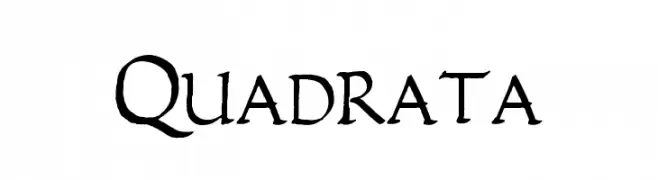
( Fonts by Nick Curtis - www.nicksfonts.com )
A bold, decorative blackletter font with intricate detailing and a Gothic style.
An oblique serif font with medium weight and elegant, angular serifs.
( Fonts by Goma Shin - Shintarou Nakayama www.geocities.jp/gomarice_font/ )
A bold, blocky serif font with strong, consistent strokes and high contrast.
( Fonts by Goma Shin - Shintarou Nakayama www.geocities.jp/gomarice_font/ )
A bold, rounded font with a playful and chunky style.
( Fonts by Fernando Carvente - serifdechocolate.wordpress.com )
A bold, dynamic font with thick strokes and a slight slant.
A playful, bold font with thick, rounded strokes and a comic book style.
( Fonts by Divide By Zero! - fonts.tom7.com )
A retro dot matrix font inspired by vintage pinball displays.
( Fonts by www.DigitalDreamDesign.net )
A bold, playful font with bubble-like characters and thick outlines.
( Fonts by www.DigitalDreamDesign.net )
A bold, geometric font with a playful, modern aesthetic and retro-futuristic flair.
( Fonts by www.DigitalDreamDesign.net )
A playful and bold font with rounded, exaggerated forms.
( Fonts by www.DigitalDreamDesign.net )
A complex, maze-like decorative font with bold geometric patterns.
( Fonts by www.DigitalDreamDesign.net )
A pixelated, retro digital font with bold, blocky characters.
( Fonts by www.DigitalDreamDesign.net )
A dot matrix style font with a modern, digital aesthetic.
( Fonts by www.DigitalDreamDesign.net )
A bold, geometric font with a modern, futuristic style.
( Fonts by www.DigitalDreamDesign.net )
A bold, oblique font with a futuristic and dynamic style.
( Fonts by www.DigitalDreamDesign.net )
A bold, geometric font with a futuristic, outlined style.
( Fonts by www.DigitalDreamDesign.net )
A pixelated, bitmap-style font with a retro digital aesthetic.
( Fonts by www.DigitalDreamDesign.net )
A bold, geometric font with a modern, futuristic style.
( Fonts by www.DigitalDreamDesign.net )
A bold, geometric font with a modern, futuristic style.
( Google Web Fonts )
A clean, modern monospaced font ideal for coding and technical documents.
A modern, italic sans-serif font with clean lines and excellent legibility.
( Fonts by www.letterror.com )
A bold, modern font with high contrast and strong visual impact.